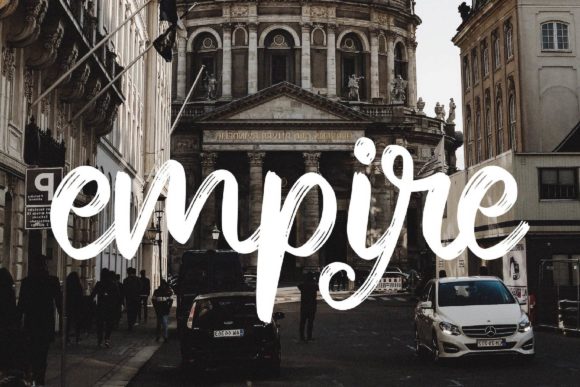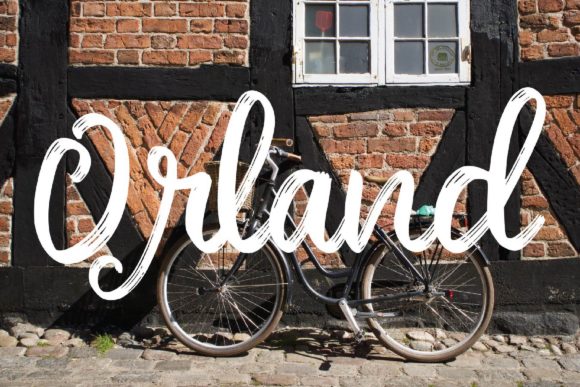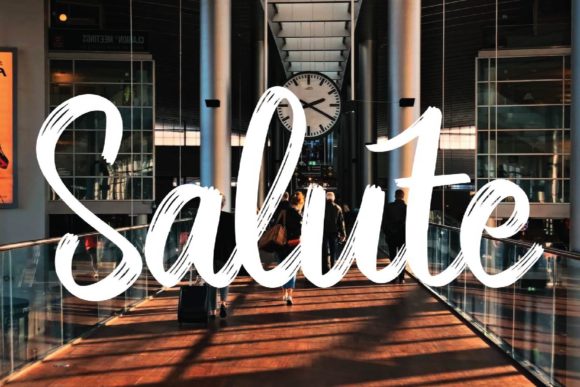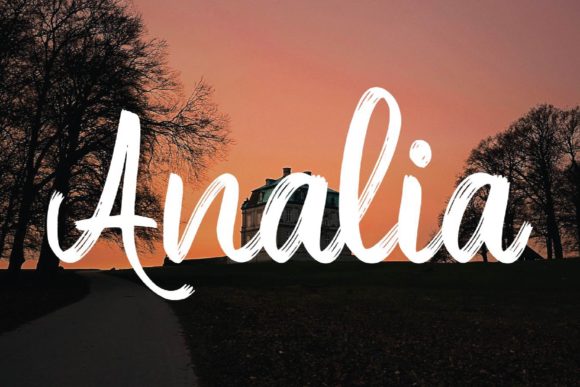
Introduction to Denmark Font
Denmark is a friendly and fun handwritten font with a cool twist.
It’s the perfect font for adding a sweet charm to any design .
Key Features of Denmark Font
Why Choose Denmark Font?
Denmark Font offers exceptional quality and versatility, making it a valuable addition to your design toolkit. Whether you’re creating for personal projects or commercial use, Denmark Font delivers professional results.